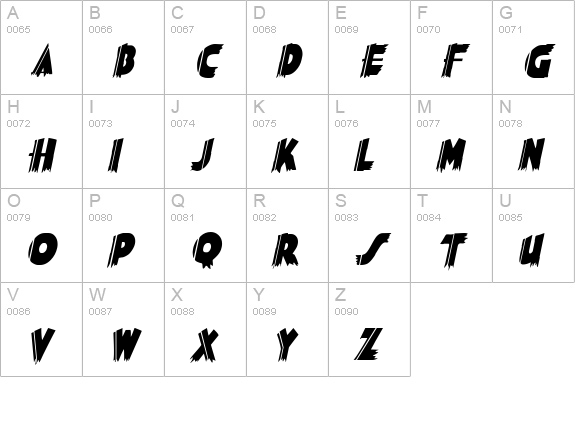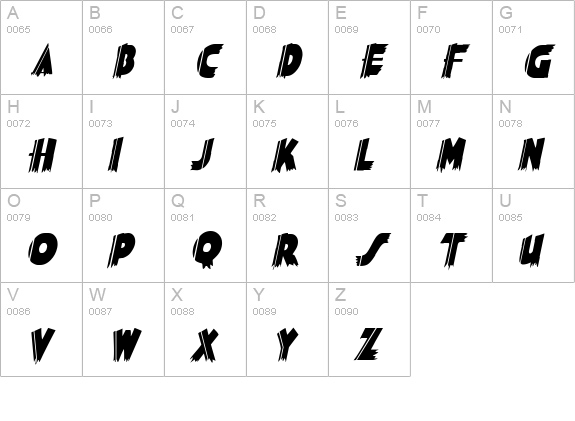
PosterCondensed Italic Font Details
PosterCondensed Italic is a distinctive, italic variant in the PosterCondensed typeface family \xE2\x80\x94 well suited to design and typography projects.